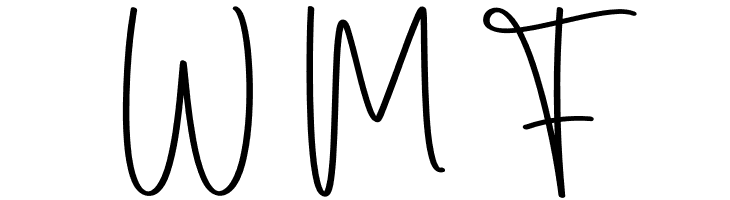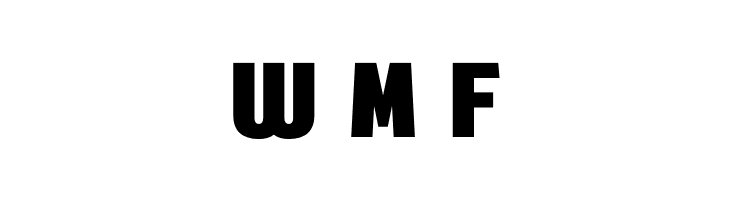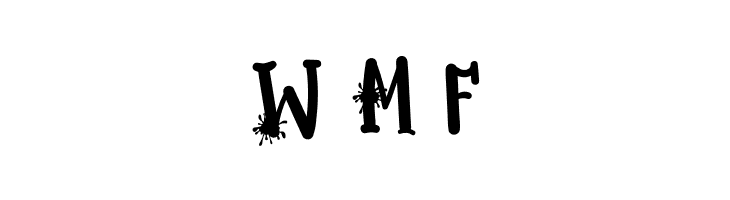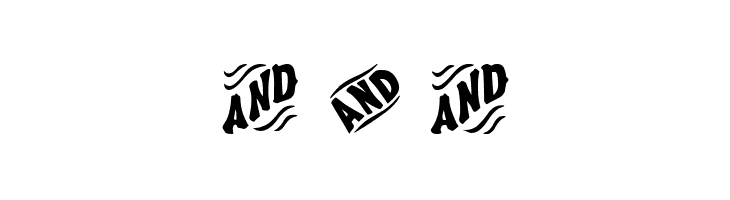
A bold, playful font with a Halloween theme and italicized style.
A playful and spooky decorative font ideal for Halloween themes.
A bold, spooky font with irregular edges, perfect for Halloween themes.
A bold, jagged font with a playful, spooky Halloween theme.
A playful, spooky font with dripping, bold characters ideal for Halloween themes.
A playful, spooky font with decorative Halloween-themed elements.
A whimsical and decorative font with playful curls and ornate details.
A playful, Halloween-themed font with characters carved into pumpkin shapes.
A whimsical and playful font with swirling, decorative elements.
A bold, impactful font with thick strokes and minimal spacing, ideal for strong visual statements.
A playful, handwritten font with flowing, interconnected letterforms.
A playful, festive font with a hand-drawn, decorative style.
A bold, impactful typeface with uniform strokes and strong presence.
Bold, blocky font with a modern and assertive style.
Whimsical pumpkin and jack-o'-lantern icon font.
A bold, decorative Halloween-themed display font with playful, spooky details.
A bold, condensed sans-serif font designed for maximum impact.
Ornate, vintage-inspired catchword display font with bold, decorative styling.
A whimsical Halloween-inspired decorative font with themed illustrations in each character.
A dripping, Halloween-themed decorative font with playful, spooky details.
A decorative, dripping Halloween-themed display font.
A bold, festive display font with cloud or snow accents.
Festive, ornament-themed decorative font with a handwritten touch.
Bold, bubbly font with snow-topped letters for festive themes.
Bold decorative font with festive star patterns and strong outlines.
Festive, bold display font with Santa-themed decorations.
Festive, bold display font with snowflake and star decorations.
Bold, festive display font with decorative holiday patterns.
Festive, decorative display font with snowflake accents.
Festive decorative font with stars and string lights for a holiday feel.
Festive sans-serif font with snowflake decorations for holiday themes.
Bold, snow-capped decorative font with festive winter elements.
Bold, festive display font with jagged, playful edges.
Bold display font with stars and stripes pattern in uppercase letters.